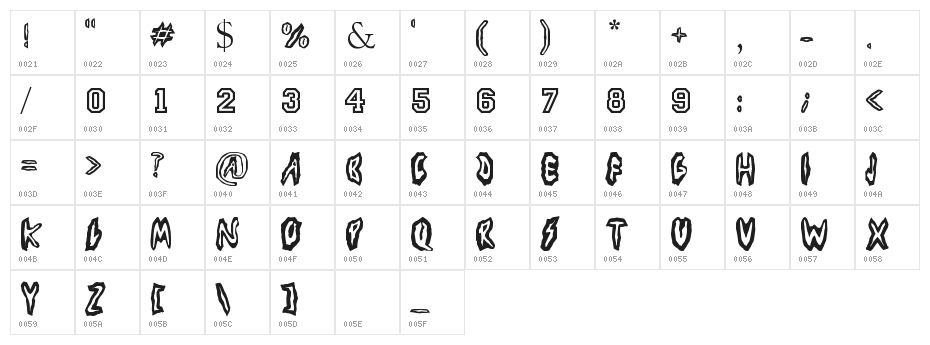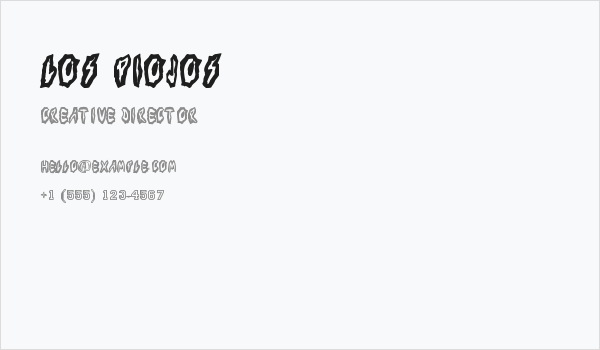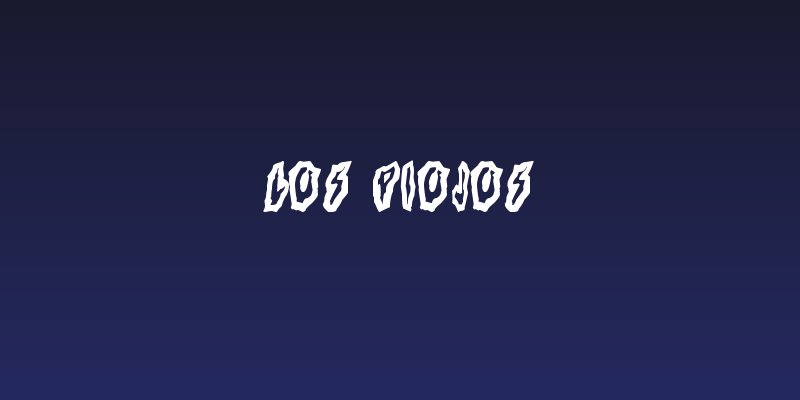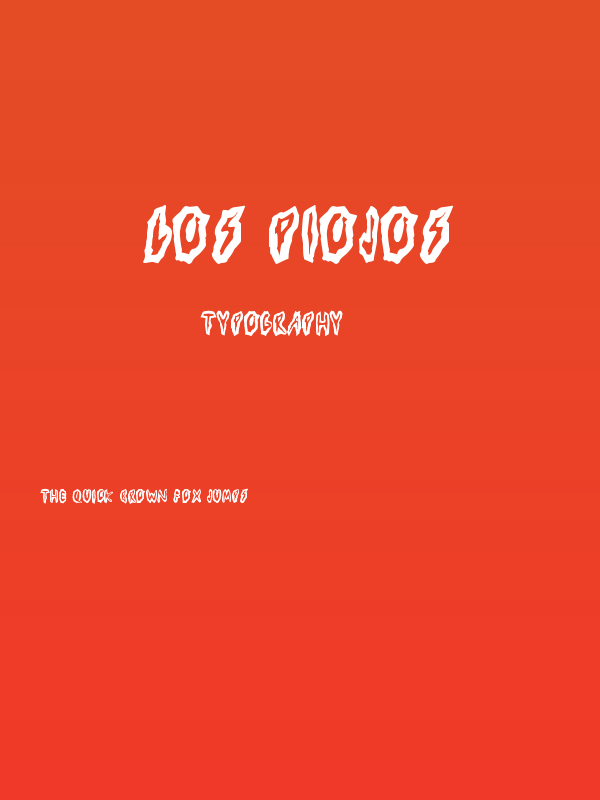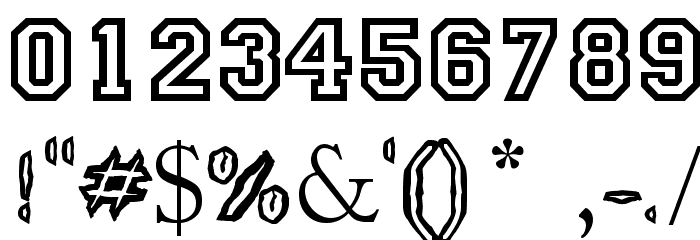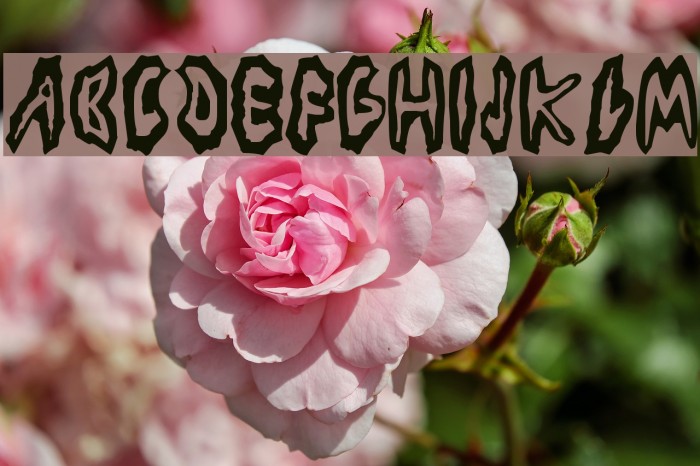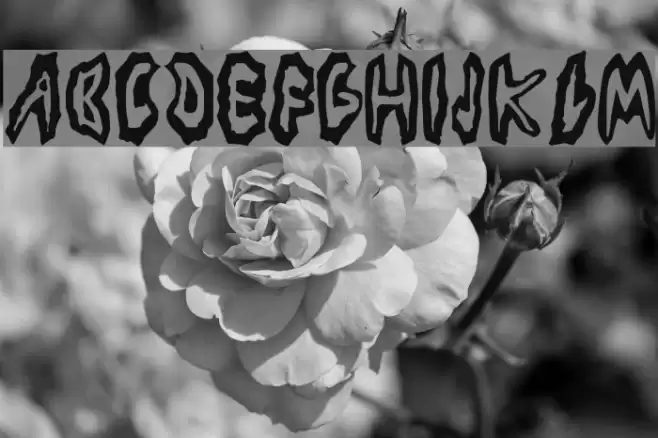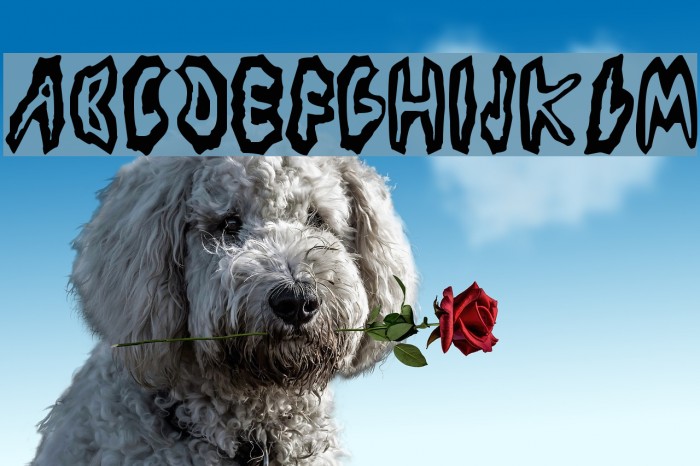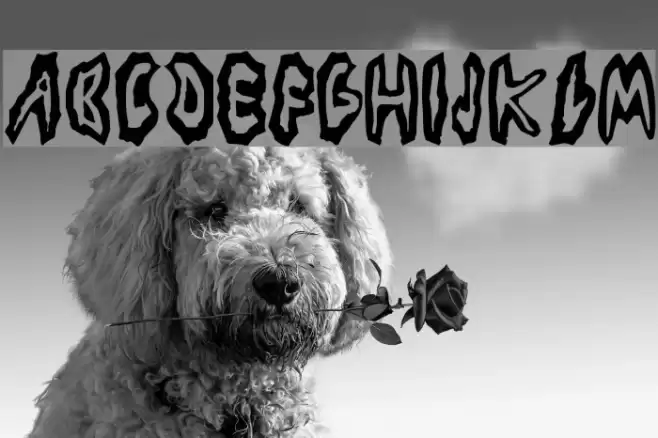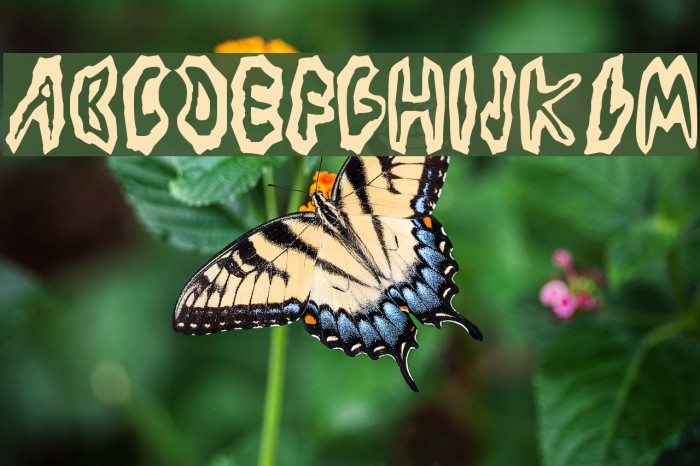
Los Piojos Font
✎ Distorted Eroded
| カテゴリ | Distorted Eroded |
| 全体的なスタイル | Modern, Rebellious |
| おすすめプロジェクト | Ideal for music album covers, posters, streetwear branding, and edgy graphic designs. |